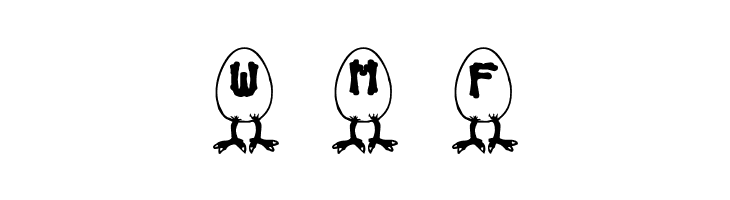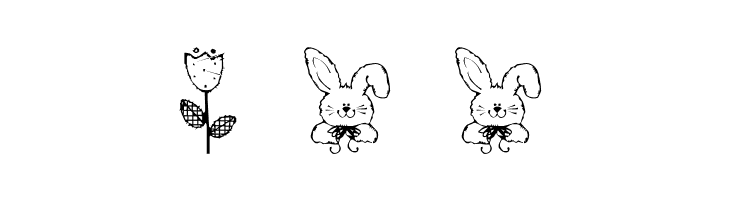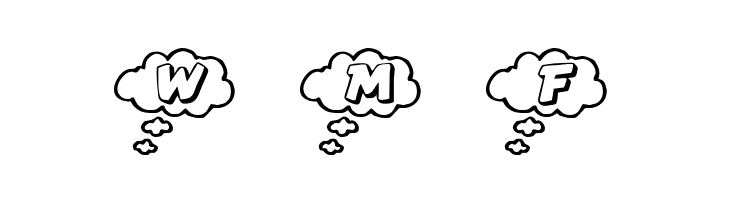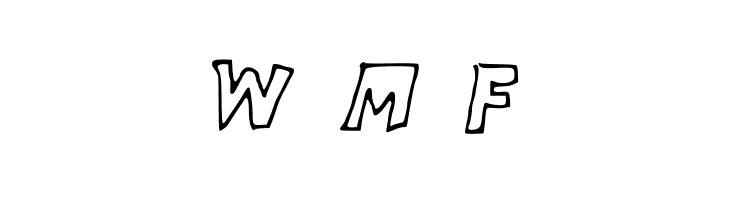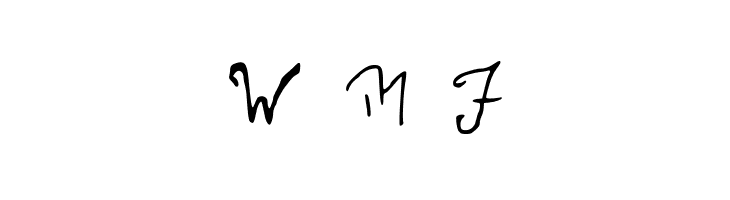
A vintage, typewriter-style font with a textured, handcrafted appearance.
( Fonts by omoriley )
A playful, hand-drawn font with whimsical curves and irregular strokes.
A calligraphic font with elegant curves and sharp serifs.
A dynamic script font with calligraphic elegance and fluid motion.
( niram.org )
A playful handwritten font with smooth, rounded strokes and a casual style.
( Ritvik Kar - graphicallycorrect.blogspot.com )
A playful, hand-drawn font with bold, contrasting styles.
( Ritvik Kar - graphicallycorrect.blogspot.com )
A lively, handwritten-style font with dynamic strokes and artistic flair.
( Samah Quadri )
A bold, angular font with a playful, retro style.
( Renny Murray - www.rennysniche.com )
A playful, decorative font with characters enclosed in basket designs.
( Renny Murray - www.rennysniche.com )
A whimsical train-themed font with letters and numbers in train cars.
( Renny Murray - www.rennysniche.com )
A bold, bomb-themed decorative font with explosive character designs.
( Renny Murray - www.rennysniche.com )
A playful, bug-themed decorative font with characters inside beetle shapes.
( Renny Murray - www.rennysniche.com )
An ornate, decorative font with vintage-style framed characters.
( Renny Murray - www.rennysniche.com )
A decorative font with letters encased in floral-like circular designs.
( Renny Murray - www.rennysniche.com )
A decorative font with uppercase letters in floral circular borders.
( Renny Murray - www.rennysniche.com )
A playful font with characters inside cartoon chicken outlines, perfect for fun designs.
( Renny Murray - www.rennysniche.com )
A decorative font with dragon motifs integrated into each character.
( Renny Murray - www.rennysniche.com )
A playful font with characters inside elephant outlines, perfect for fun and engaging designs.
( Renny Murray - www.rennysniche.com )
A whimsical font with letters inside penguin shapes, perfect for playful designs.